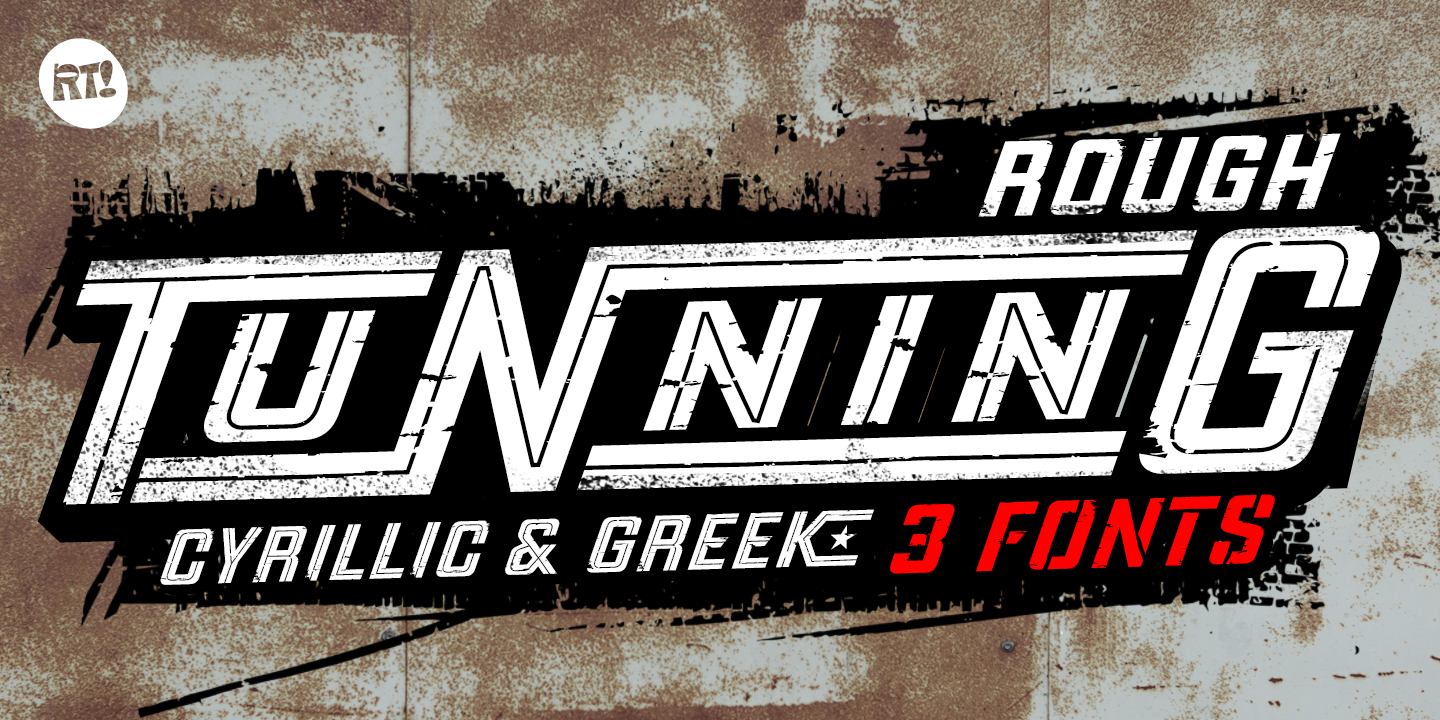
Tunning Rough Font Free Download is a bold and textured display typeface that brings a rugged, vintage feel to any design project. Its distressed, hand-crafted appearance makes it an excellent choice for branding, posters, packaging, apparel designs, and promotional materials that aim for a gritty, authentic, and adventurous style.
The font’s rough edges and strong character ensure high visibility and add a handcrafted personality to headlines, logos, and marketing visuals. Tunning Rough is perfect for projects that seek to convey toughness, tradition, and a bold artistic spirit across both print and digital media.
Tunning Rough is a valuable addition to any designer’s collection, offering an energetic, vintage aesthetic ideal for dynamic and standout creative projects.